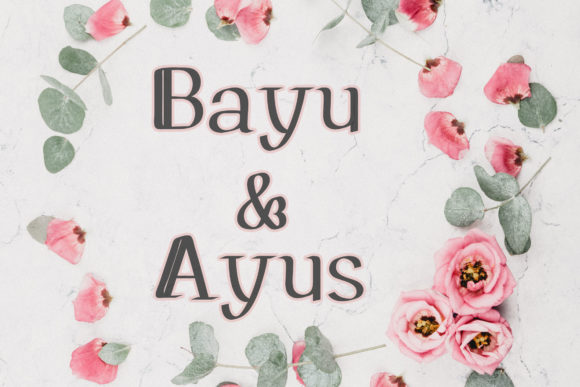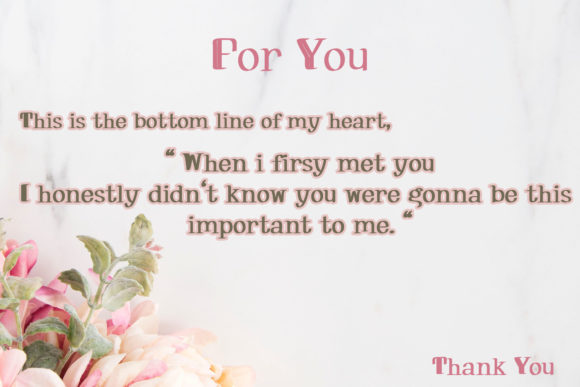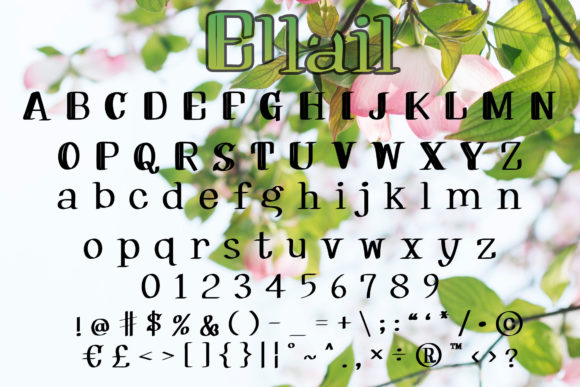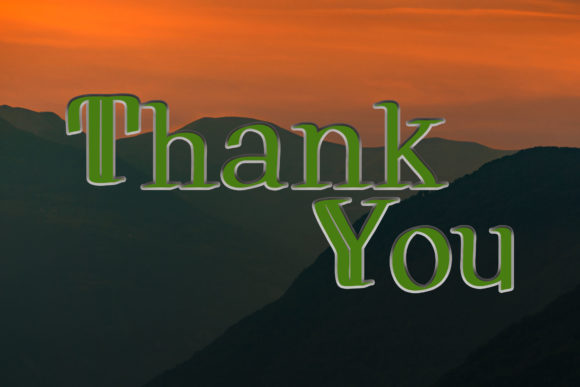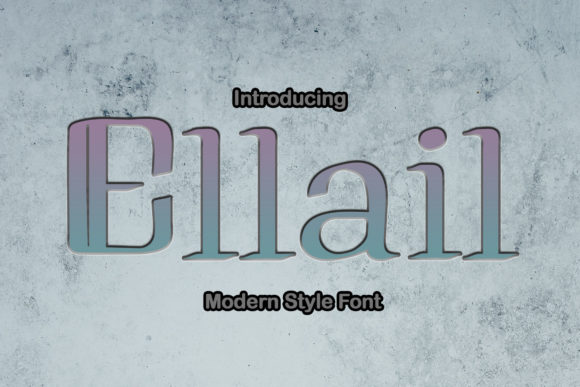
Introducing Ellail Font: Elevate Your Designs with a Distinct and Authentic Serif
In the realm of typography, a font can make or break a design. For designers and crafters seeking to create visually stunning logos, branding materials, and quotes, the right font is essential. This is where Ellail Font comes into play – a distinct and authentic serif font designed to bring your designs to life. With its unique and beautiful touch, Ellail Font is poised to become your go-to choice for all your creative projects.
What Makes Ellail Font Stand Out?
Ellail Font is not just another serif font; it’s a game-changer. Every letter in the Ellail Font family is crafted with precision and care, ensuring that each character has a unique and beautiful touch. This attention to detail sets Ellail apart from other fonts, making it an excellent choice for designers who want to create eye-catching logos, branding materials, and quotes that stand out from the crowd.
When it comes to creating logos and branding materials, the font you choose is crucial. It needs to be memorable, legible, and reflective of your brand’s personality. Ellail Font checks all these boxes and more. Its distinct serif design ensures that your logo or brand name will be easily recognizable, while its elegant touch adds a level of sophistication that’s hard to achieve with other fonts.
Elevate Your Quotes with Ellail Font
Quotes are a great way to add depth and meaning to your designs. However, to make them truly impactful, you need a font that commands attention and respect. Ellail Font is perfect for showcasing your favorite quotes. Its beautiful and authentic design ensures that your quotes will be visually stunning, making them perfect for sharing on social media, using in presentations, or displaying on your website.
Why Choose Ellail Font?
So, why should you choose Ellail Font over other serif fonts? Here are a few compelling reasons:
- Unique Design: Every letter in the Ellail Font family has a unique and beautiful touch, ensuring that your designs will stand out.
- Authentic Feel: Ellail Font has an authentic feel that’s hard to find in other serif fonts, making it perfect for creating designs that require a touch of elegance.
- Versatility: Whether you’re creating logos, branding materials, or quotes, Ellail Font is versatile enough to handle any design task.
Tips for Using Ellail Font
To get the most out of Ellail Font, here are a few tips:
- Pair it with Other Fonts: Experiment with pairing Ellail Font with other fonts to create visually stunning designs.
- Adjust the Size: Don’t be afraid to adjust the size of Ellail Font to create visual hierarchy in your designs.
- Use it Consistently: Use Ellail Font consistently across your designs to create a cohesive brand identity.
In conclusion, Ellail Font is a distinct and authentic serif font that’s perfect for designers and crafters looking to create eye-catching logos, branding materials, and quotes. With its unique and beautiful touch, Ellail Font is sure to elevate your designs and make them come alive. Whether you’re a seasoned designer or just starting out, Ellail Font is an excellent addition to your font library.